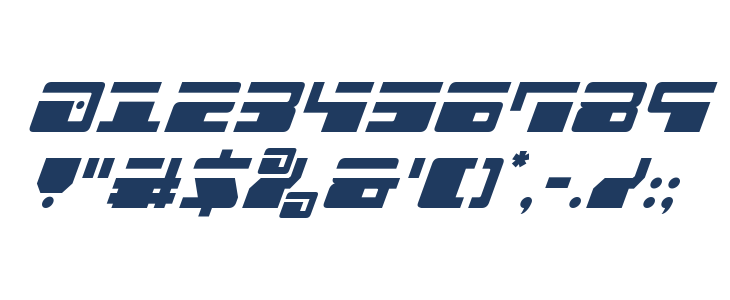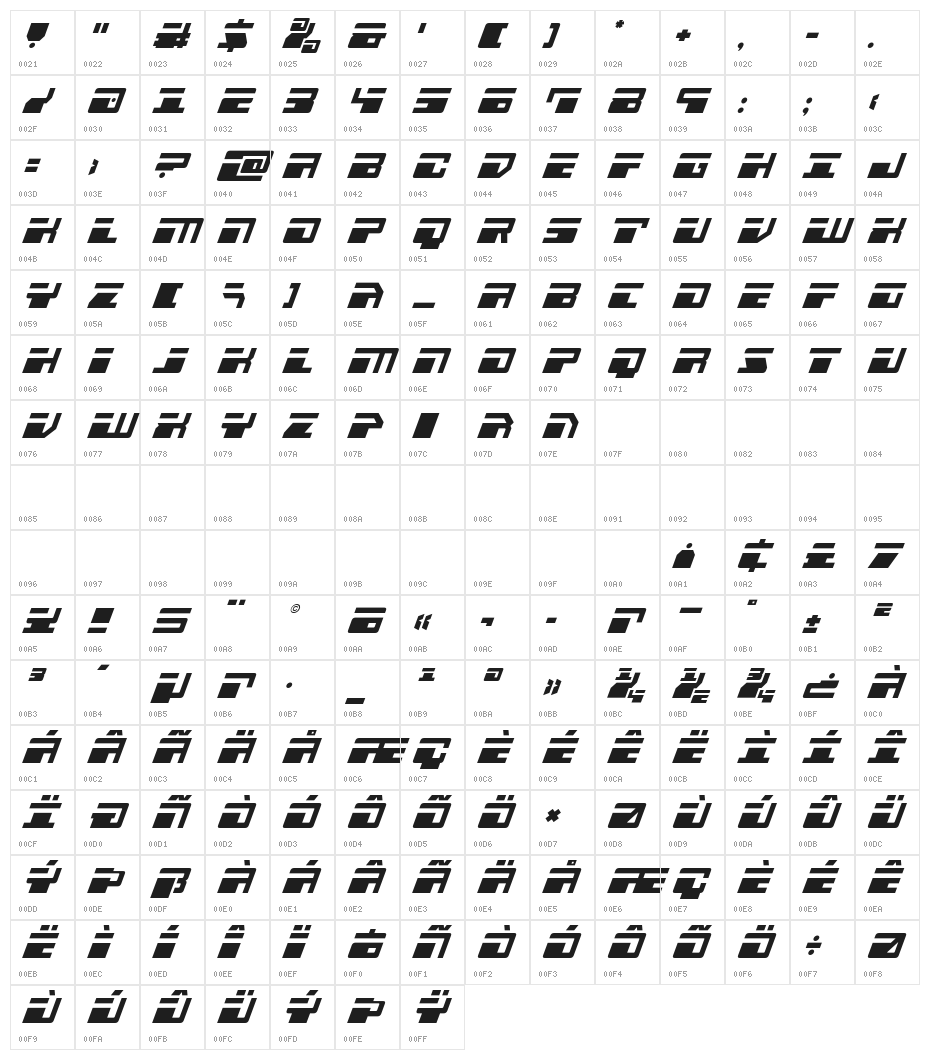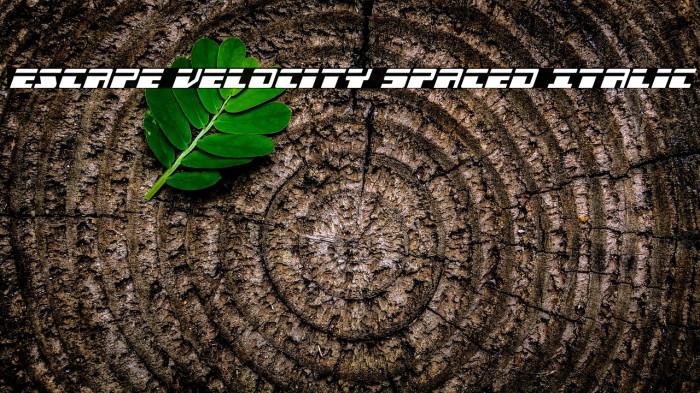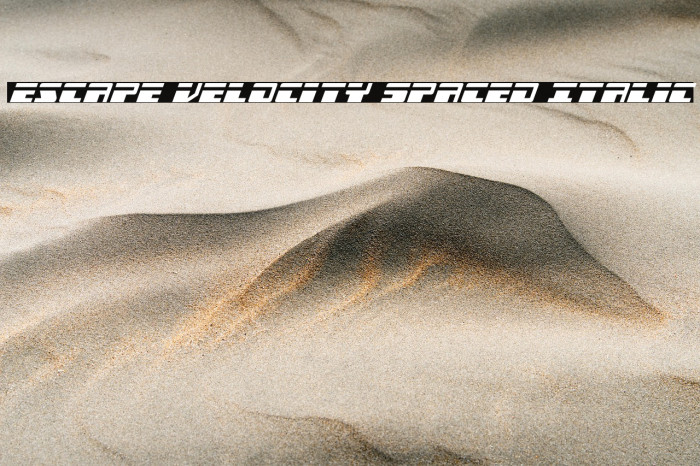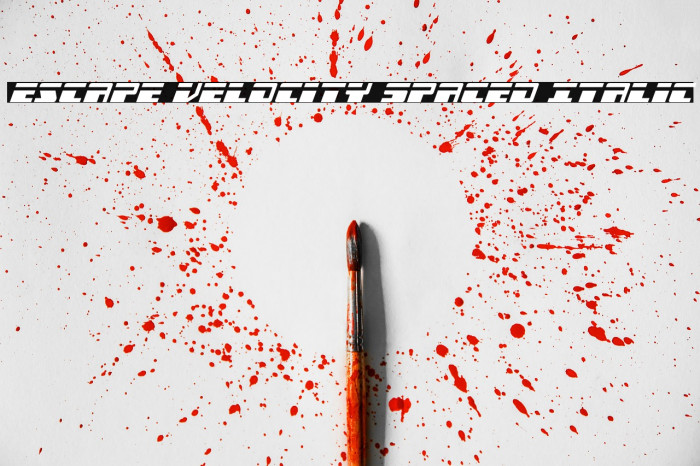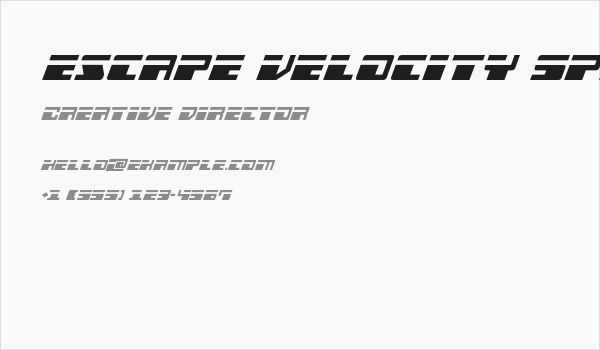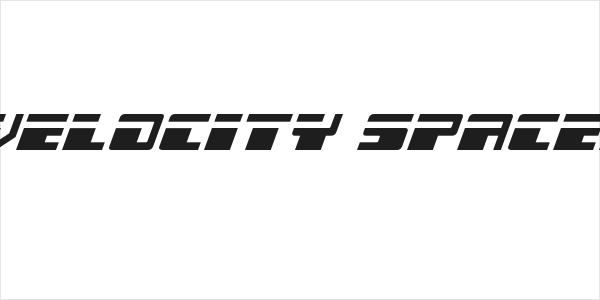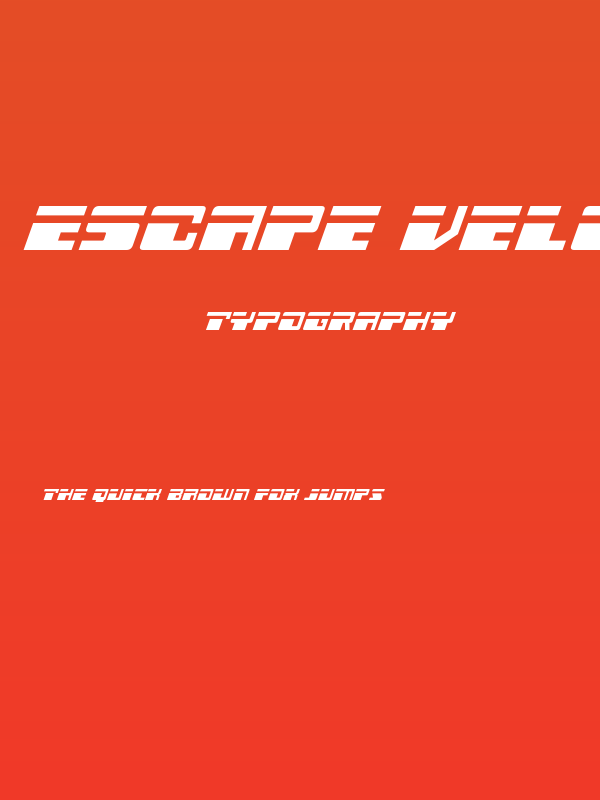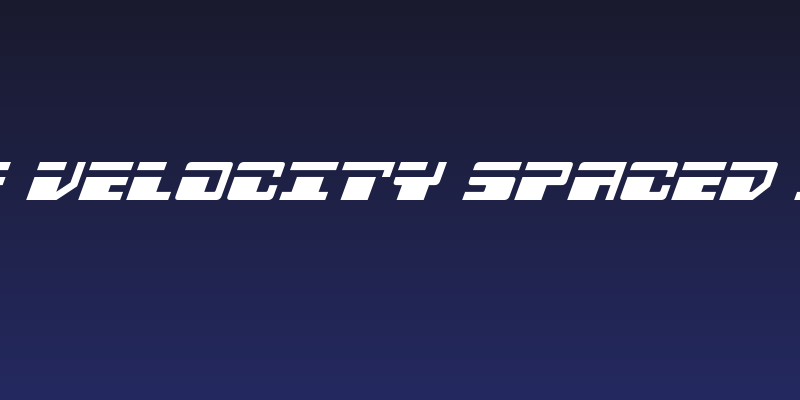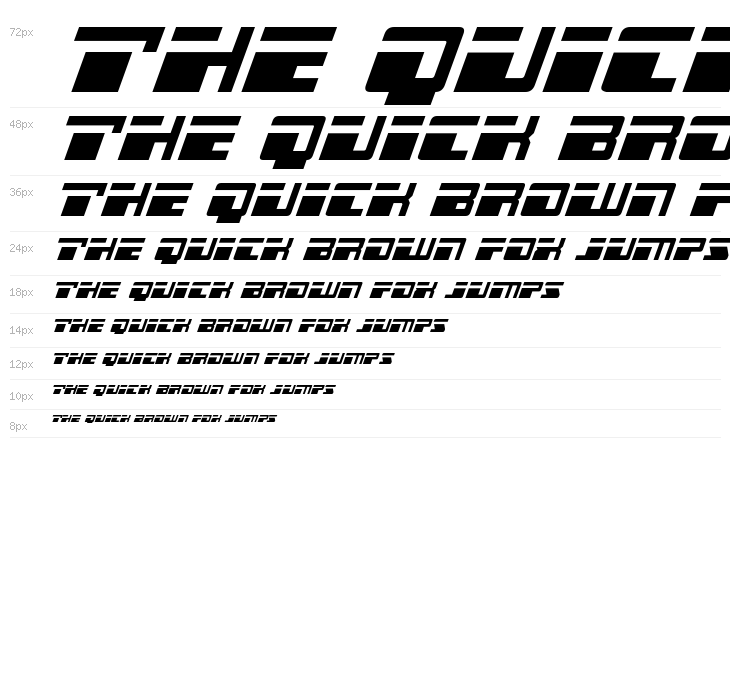
Escape Velocity Spaced Italic Font
Escape Velocity Spaced Italic Description
This font features a bold, futuristic design with a strong italic slant, giving it a sense of motion and speed. The characters are wide and angular, with sharp edges and a geometric structure. The spacing between characters is tight, enhancing the compact and cohesive look. The font's high contrast in stroke thickness adds to its dynamic appearance, making it stand out in any design. Its unique style is reminiscent of science fiction and technology themes, suitable for projects that require a modern and edgy aesthetic.
| Proposed Projects | Ideal for sci-fi movie posters, tech company logos, video game titles, and futuristic event flyers. |